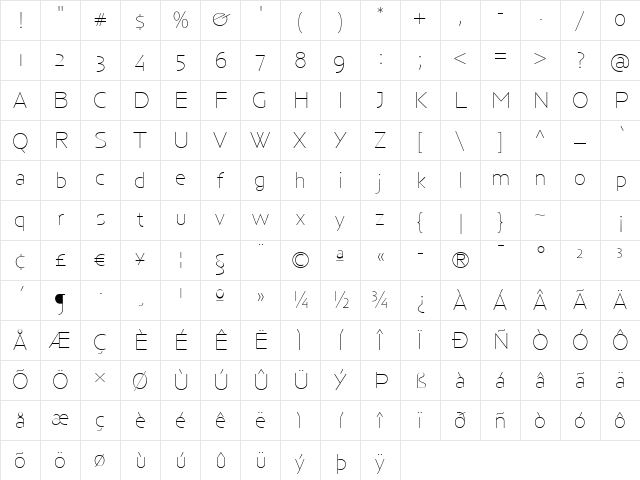
Complete Anisette Thin glyph index. Displaying only characters natively supported by Anisette Thin font.
Anisette is a composed and adaptable typeface that performs quietly and consistently across a wide range of design contexts. Its slender proportions lend an understated elegance to any composition.
Who designed the Anisette Thin font?